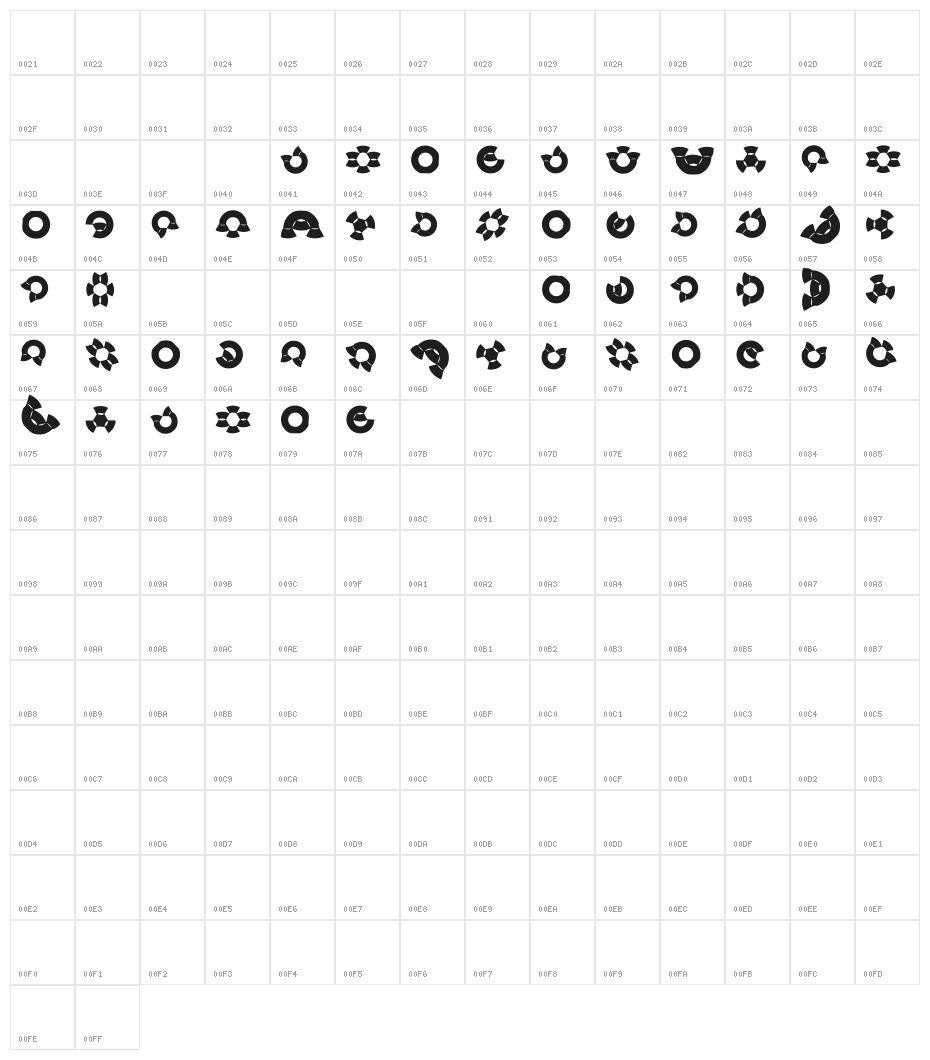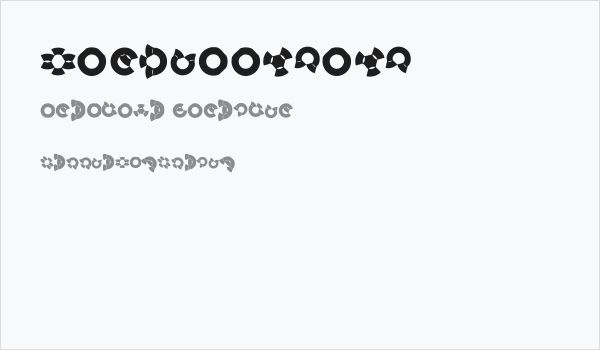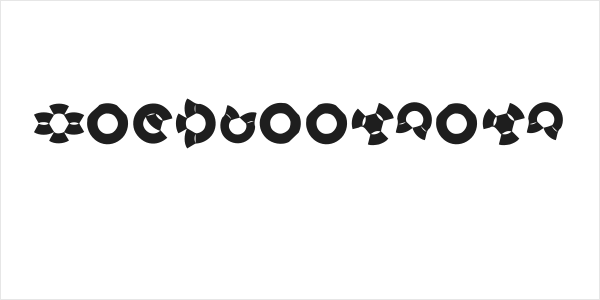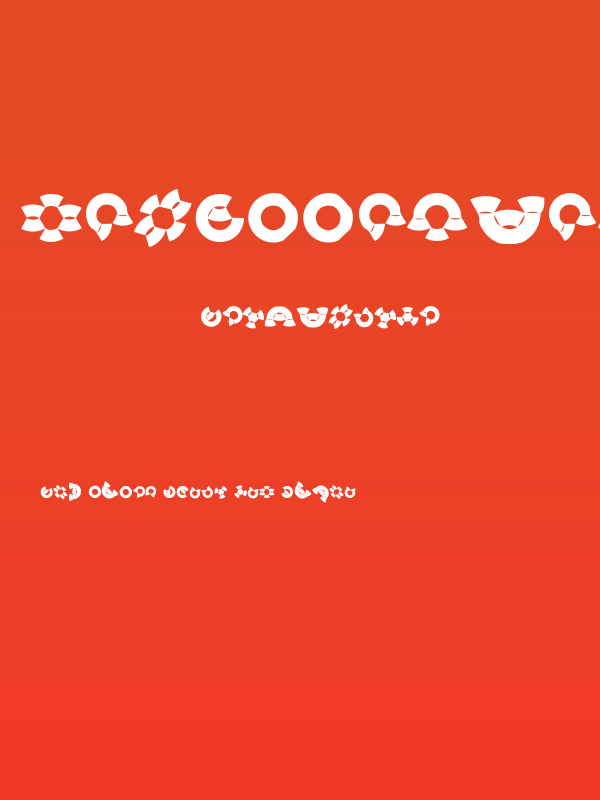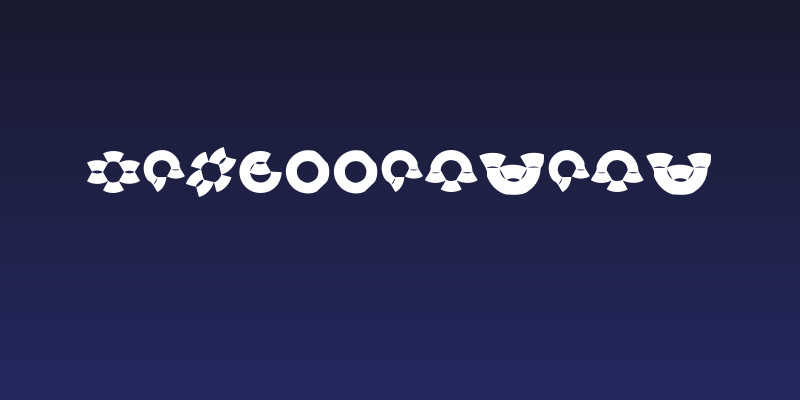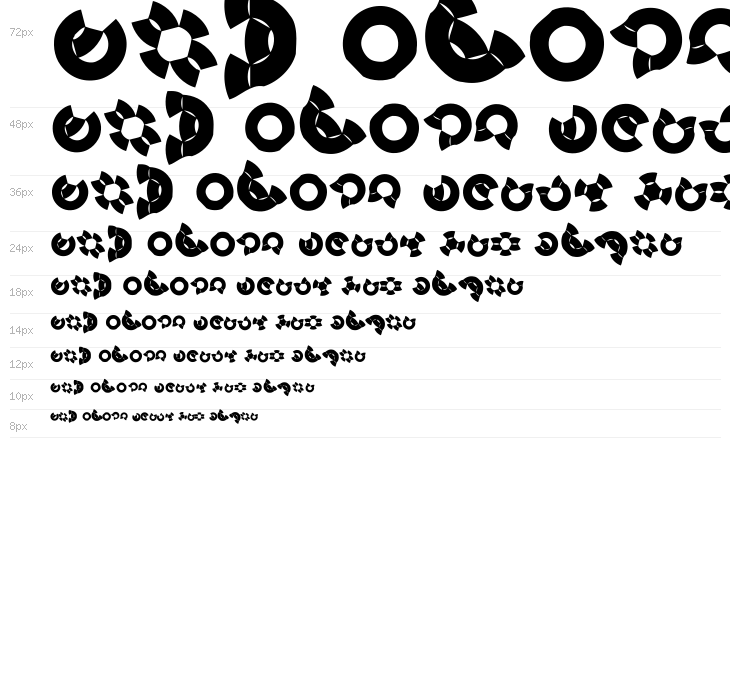
BirdsSinging Font
BirdsSinging Description
This font features a highly decorative and abstract design, with each character resembling a stylized bird or floral motif. The characters are composed of bold, circular shapes with intricate cutouts and patterns, creating a unique and artistic appearance. The font's playful and whimsical style makes it stand out, with each letter and number offering a distinct visual experience. The special characters maintain the same thematic design, ensuring consistency across the entire set. This font is ideal for projects that require a strong visual impact and a touch of creativity.
| Use Case | Logos, Posters, Artistic Designs |
| Proposed Projects | Ideal for artistic projects, branding, posters, and any design requiring a unique and eye-catching font. |